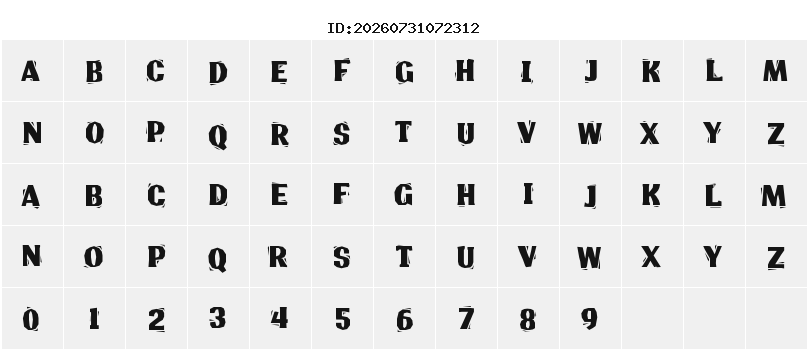
Lino Chisel Preview
• Font Name: Lino Chisel
• Full Font Name: Lino Chisel
About Lino Chisel.ttf
Lino Chisel.ttf is a modern, elegant sans-serif font designed for ultimate readability and visual harmony. Perfect for branding, headlines, web design, and print materials.